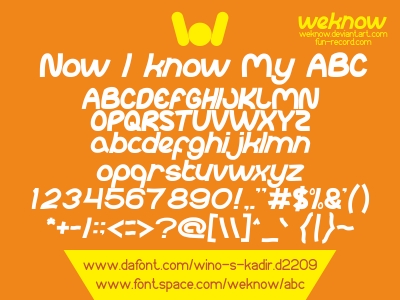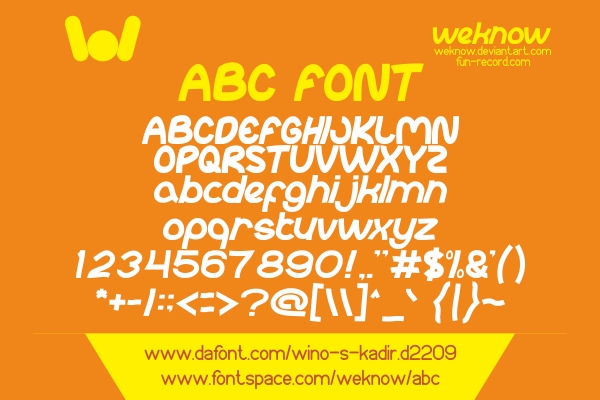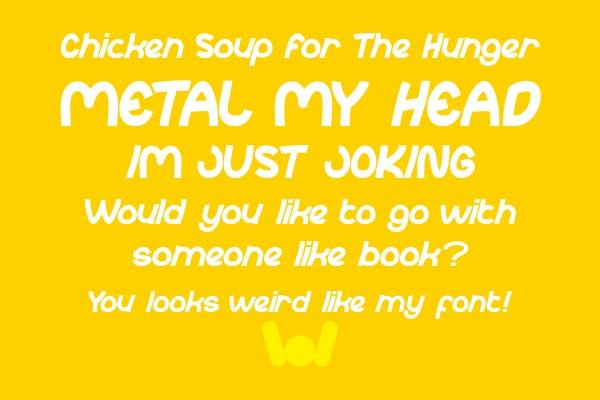
HomeScript FontsABC Font Script Fonts ABC Font FacebookXPinterestWhatsApp ABC Font Poster 2 ABC Font Poster 3 About ABC Font ABC is a hand-drawn type with a playful look. DOWNLOAD ON CREATIVE FABRICAThis font is sold and delivered by Creative Fabrica. Font Canyon may earn a commission if you buy through this link. People also explored Cheesy Honey Font Alone Font Hugest Font Pimjai Oo Font Mint Chocolate Font Sabian Valent Indigold Font Herbs Font Caroline Font 292 0 TagsABC Font Previous articleSparkly Hearts FontNext articlePapaya Sunrise Font LEAVE A REPLY Cancel reply Comment: Please enter your comment! Name:* Please enter your name here Email:* You have entered an incorrect email address! Please enter your email address here Website: Save my name, email, and website in this browser for the next time I comment. Personal Use Free Waverly Date Personal Use Free Read more about this font Twisty Girlz Personal Use Free Read more about this font Fuixg Personal Use Free Read more about this font Hunters Personal Use Free Read more about this font BLOG Free vs Paid Fonts: Why Investing in Premium Fonts Is Worth It Free vs Paid Fonts: Why Premium Fonts Are Worth It in 2025 The debate of free vs paid fonts continues in the design world. While... Elegant Wedding Invitation Fonts – Handwritten & Script Fonts How to Install and Use Fonts on Windows, macOS, and Web Projects Fonts That Capture the Spirit of New York City